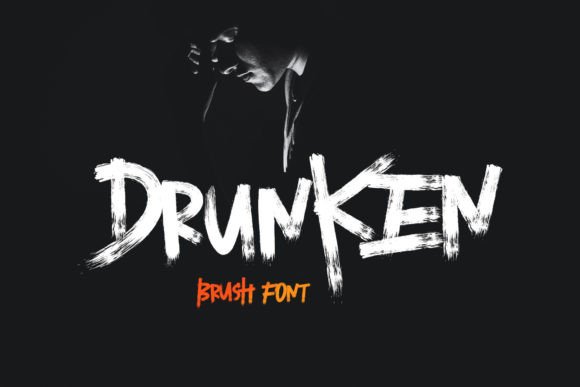
Introducing Drunken Font: The Ultimate Display Font for Making a Statement
Unleash your creativity with Drunken Font, the strikingly modern brushed display font that commands attention with its bold and textured style. Whether you're designing captivating logos, eye-catching posters, or stunning social media graphics, Drunken Font is your go-to choice for making a lasting impression.
Drunken Font boasts a distinct rough texture that adds a touch of edginess to your designs. Each letter is carefully crafted with strokes that mimic the organic flow of a brush, creating a sense of movement and energy. The font's versatile nature makes it suitable for a wide range of projects, from vintage-inspired designs to contemporary branding.
With Drunken Font, you'll have access to a diverse range of glyphs and swashes, allowing you to add intricate details and flourishes to your designs. PUA encoding ensures effortless access to these special characters, giving you endless creative possibilities.
Capture the attention of your audience with Drunken Font's dynamic and captivating style. Its bold presence will transform your designs into unforgettable masterpieces, leaving a lasting impression on anyone who encounters them.
Elevate your creative projects to new heights with Drunken Font. Its unique blend of texture and boldness is sure to make your designs stand out from the crowd. Embrace the power of Drunken Font and embark on a journey of artistic expression that will leave you inspired and exhilarated.